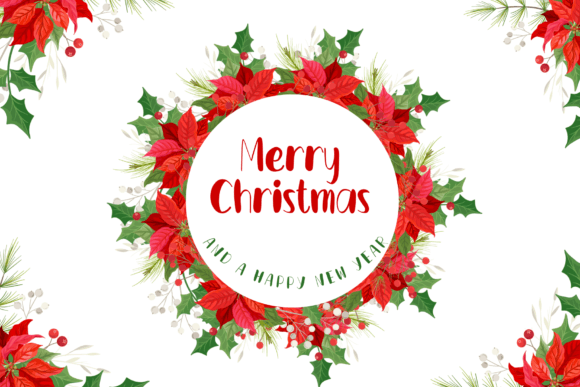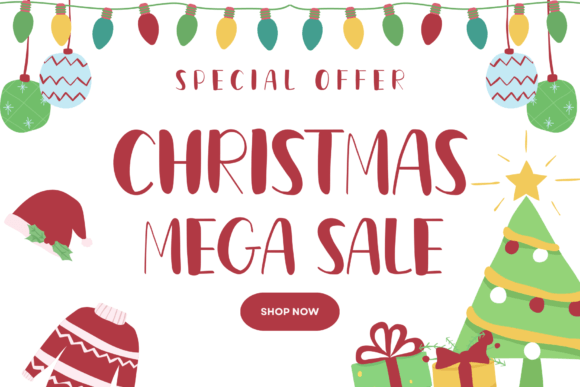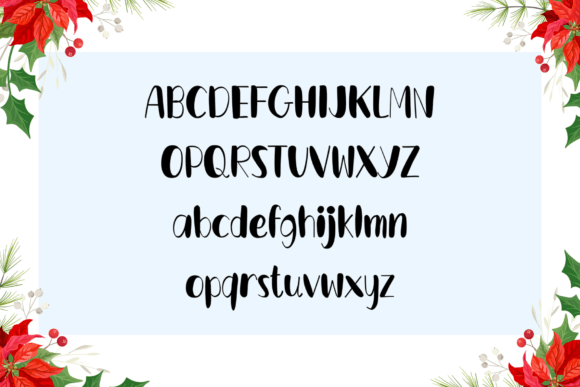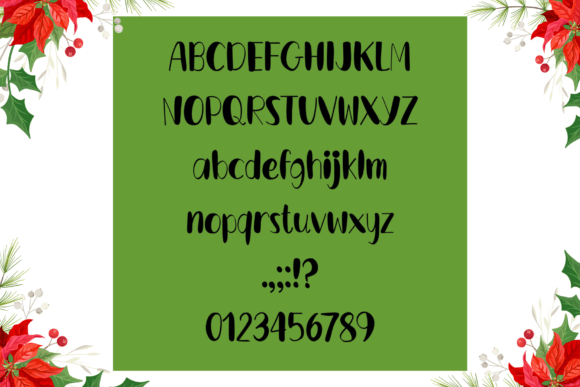
Dear Santa Font: A Fun and Quirky Handwritten Font for Your Creative Projects
Are you looking for a font that adds a touch of whimsy and playfulness to your creative projects? Look no further than the Dear Santa font! This fun and quirky handwritten font is perfect for designers, crafters, and anyone looking to add some holiday cheer to their work.
What is Dear Santa Font?
Dear Santa font is a handwritten font that is designed to capture the spirit of the holiday season. With its playful and carefree vibe, this font is perfect for creating festive and fun designs that are sure to delight. Whether you’re working on a Christmas card, a holiday party invitation, or a festive craft project, Dear Santa font is the perfect choice.
Features of Dear Santa Font
So, what makes Dear Santa font so special? Here are just a few of its features:
- Handwritten style: Dear Santa font has a charming, handwritten style that’s perfect for creating personal and unique designs.
- Playful vibe: This font has a fun and playful vibe that’s sure to add some holiday cheer to your designs.
- Easy to read: Despite its playful style, Dear Santa font is easy to read and understand, making it perfect for use in a variety of projects.
- Versatile: This font can be used in a wide range of projects, from holiday cards and invitations to craft projects and more.
How to Use Dear Santa Font
Using Dear Santa font in your creative projects is easy! Here are a few tips to get you started:
- Pair it with other fonts: Dear Santa font pairs well with a variety of other fonts, including serif and sans serif fonts. Try pairing it with a bold font for a fun and playful look.
- Use it in holiday projects: This font is perfect for holiday projects, such as Christmas cards, holiday party invitations, and more.
- Add some flair: Use Dear Santa font to add some flair to your designs. Try using it for headings or titles, or use it throughout your design for a cohesive look.
Benefits of Using Dear Santa Font
There are many benefits to using Dear Santa font in your creative projects. Here are just a few:
- Adds a touch of whimsy: This font adds a touch of whimsy and playfulness to your designs, making them more fun and engaging.
- Perfect for holiday projects: Dear Santa font is perfect for holiday projects, adding a festive touch to your designs.
- Easy to use: This font is easy to use and can be incorporated into a wide range of projects.
In conclusion, Dear Santa font is a fun and quirky handwritten font that’s perfect for adding a touch of whimsy and playfulness to your creative projects. With its playful vibe, easy-to-read style, and versatility, this font is sure to become a favorite in your font library. So why wait? Add Dear Santa font to your projects today and enjoy the results!